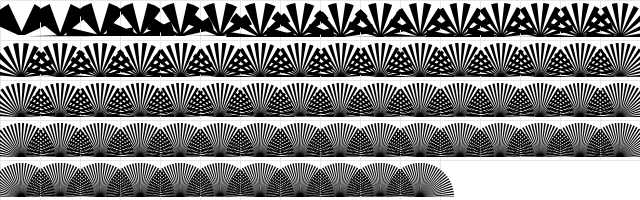
Half SunBurst-w4-01 Regular
Design Context for Half SunBurst-w4-01 Typeface
Half SunBurst-w4-01 is a composed and adaptable typeface that performs quietly and consistently across a wide range of design contexts.